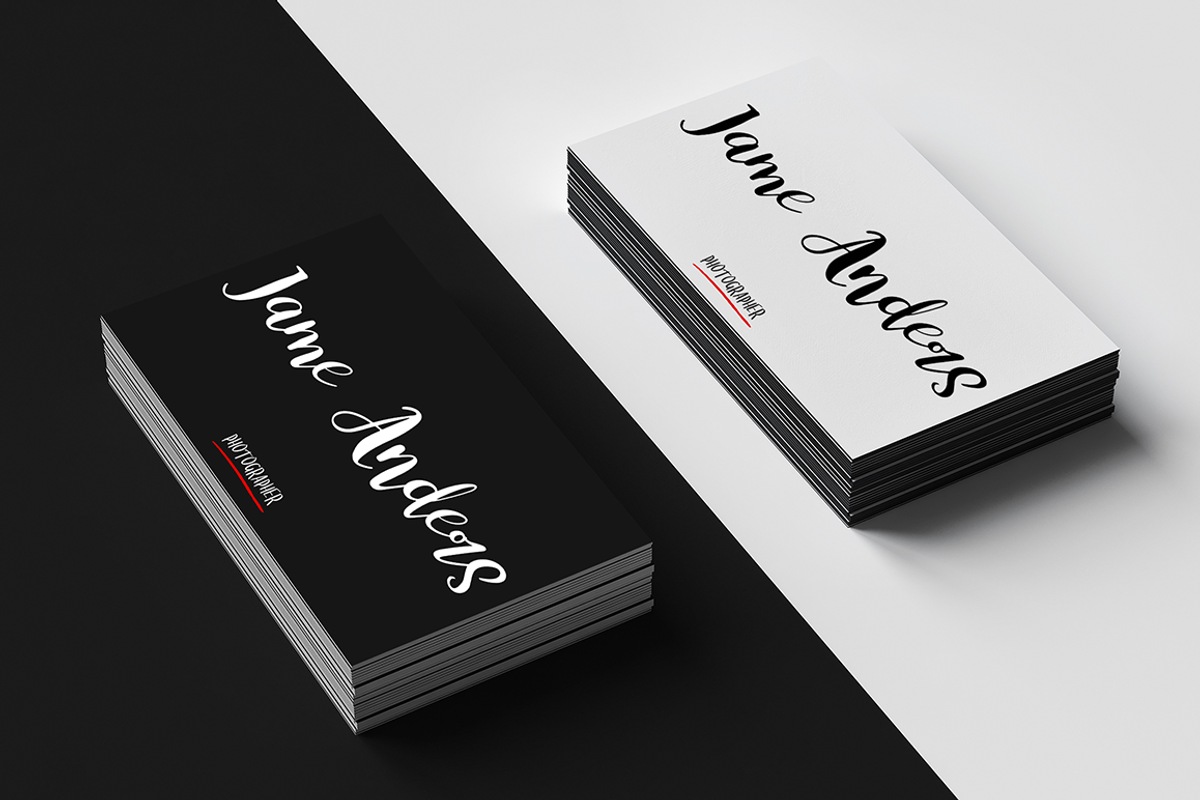
White Nights + Extras
White Nights - a new fresh handmade calligraphy font.
This fonts is ideal for branding and decorate your any project. This fonts are perfect for wedding invitation or your blog. Also with their help, you can create a logo or beautiful frame for your home. Or just use for your small business, book covers, stationery, marketing, magazines and more. I also drew a few illustrations for you that will help complete your project.